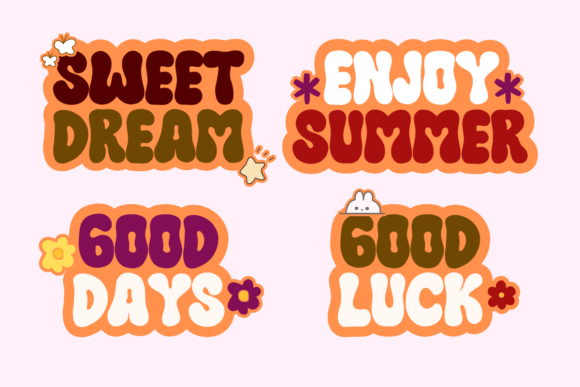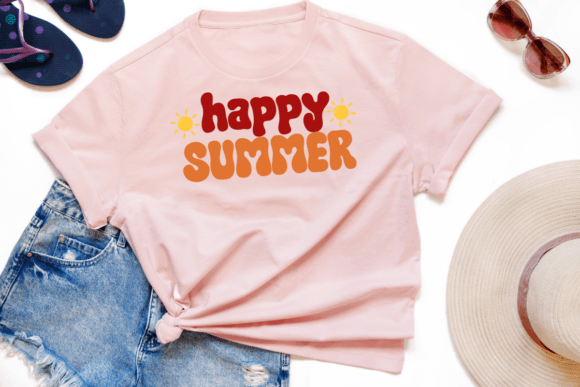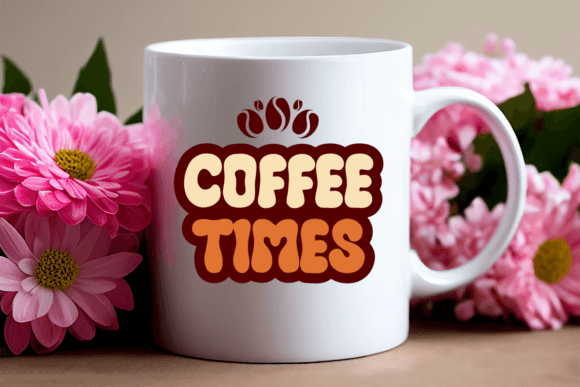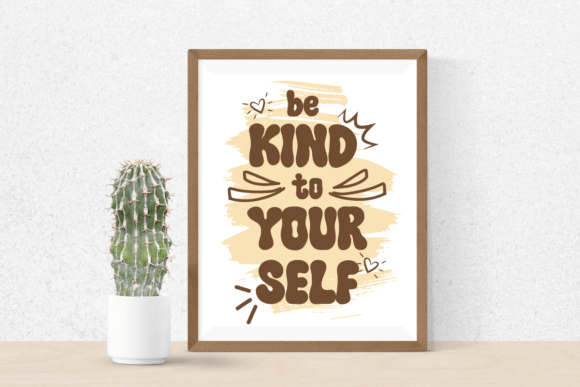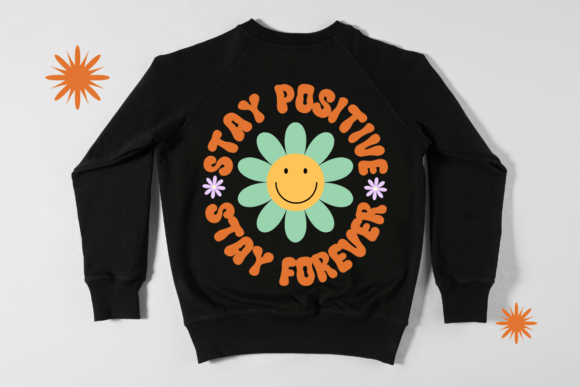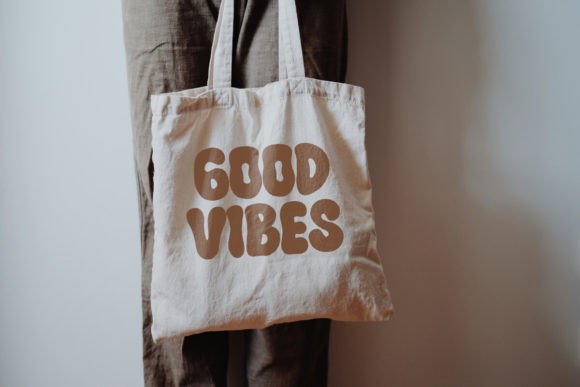
Discover the Boldes Retros Font: Elevate Your Designs with Retro Flair
Have you ever been in the middle of a design project, pouring your heart and soul into it, only to hit a roadblock when it comes to finding the perfect font? I certainly have! It was during one of those moments, working on a vintage-themed poster for a client, that I stumbled upon the Boldes Retros Font. This stunning display font has since become a staple in my design toolkit, and I’m excited to share its awesomeness with you!
A Personal Review: What I Love About Boldes Retros Font
So, what makes Boldes Retros Font so special? Here are a few things that I absolutely love:
- ✨ Unique Retro Style: Boldes Retros Font boasts a distinctive retro and vintage flair that’s perfect for creating eye-catching designs.
- ✅ Versatility: This font is incredibly versatile and can be used for a wide range of projects, from posters and t-shirt quotes to sweaters, hoodies, tote bags, and stickers.
- 💫 Beautiful Aesthetic: The font’s elegant and stylish design adds a touch of sophistication to any project.
While Boldes Retros Font is an amazing addition to any design project, there are a few minor quirks to be aware of:
- 🤔 Limited Use in Small Text Sizes: Due to its bold and ornate nature, Boldes Retros Font may not be the best choice for small text sizes or body text.
- ⚠️ Occasional Kerning Issues: As with any font, you may encounter some kerning issues, especially when using the font at larger sizes.
- Explore the font’s OpenType features, such as glyphs and stylistic alternates, to add more variety to your design.
The Story Behind Boldes Retros Font
While the true story behind Boldes Retros Font remains a mystery, it’s easy to imagine that it was created by a designer who’s passionate about retro and vintage aesthetics. Perhaps they drew inspiration from classic posters, vinyl records, and vintage advertisements to create this stunning font. Whatever the story may be, one thing is certain – Boldes Retros Font is a design gem that’s sure to elevate your projects!
| Font Name | Boldes Retros Font |
| Author | Minimalist Eyes |
| What type of projects is Boldes Retros Font best suited for? | Boldes Retros Font is perfect for a wide range of projects, including posters, t-shirt quotes, sweaters, hoodies, tote bags, stickers, sublimation, displays, and more. |
| Is Boldes Retros Font suitable for body text or small text sizes? | Due to its bold and ornate nature, Boldes Retros Font is not recommended for body text or small text sizes. It’s best used for headlines, titles, or short phrases. |
| Does Boldes Retros Font come with OpenType features? | Yes, Boldes Retros Font likely includes OpenType features such as glyphs and stylistic alternates, which can be accessed in compatible design software like Adobe Photoshop or Illustrator. |